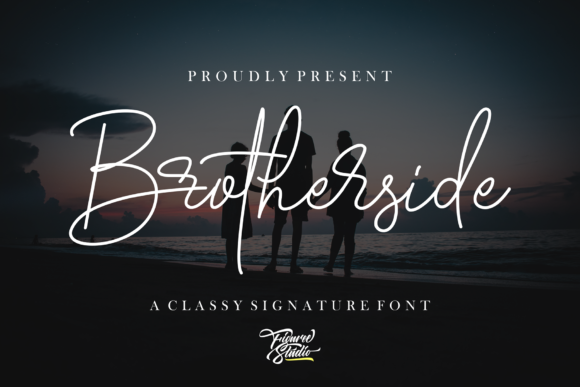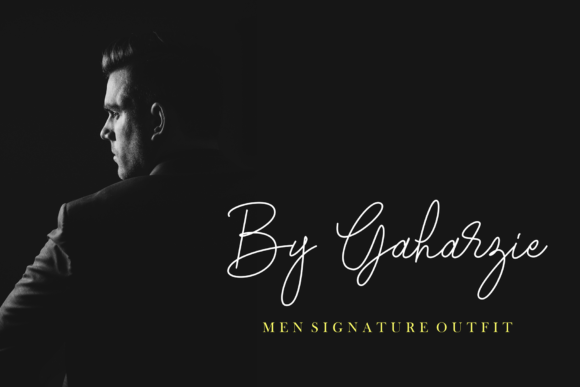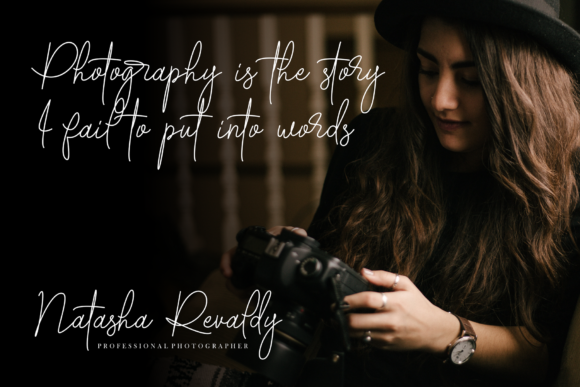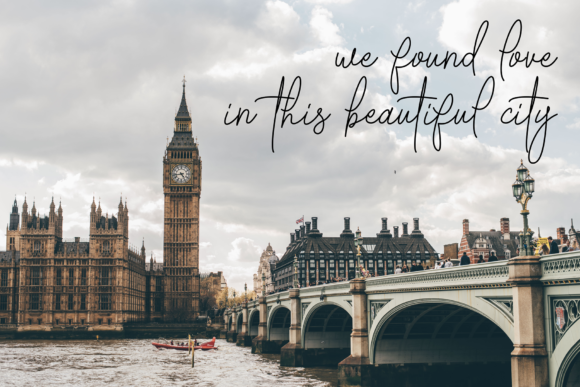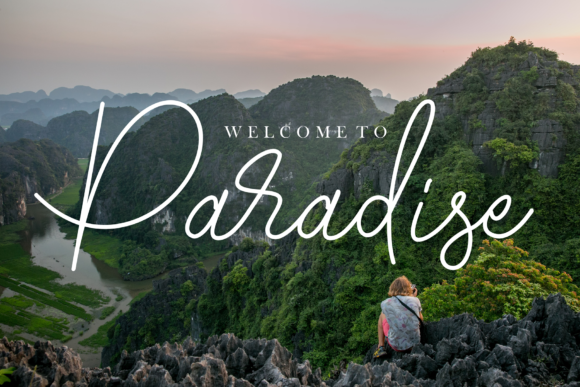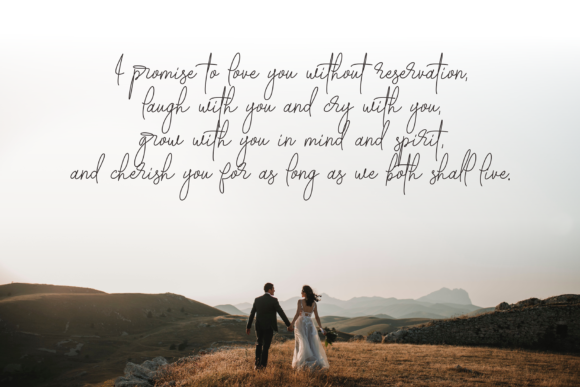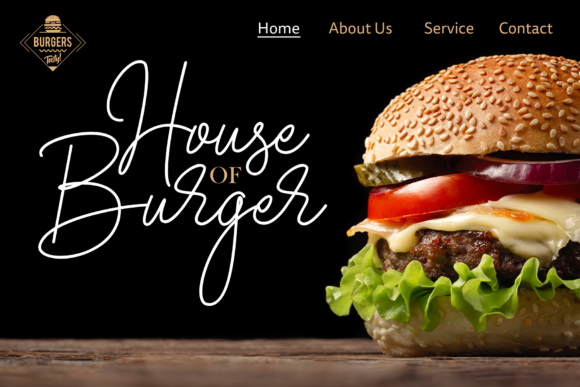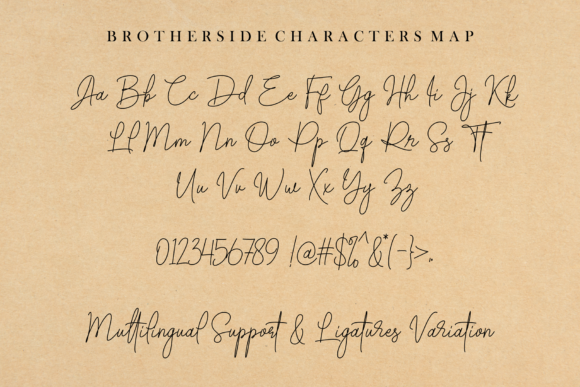
HomeScript FontsBrotherside Font Script Fonts Brotherside Font FacebookXPinterestWhatsApp Brotherside Font Poster 2 Brotherside Font Poster 3 Brotherside Font Poster 4 Brotherside Font Poster 5 Brotherside Font Poster 6 Brotherside Font Poster 7 Brotherside Font Poster 8 About Brotherside Font Brotherside is a signature font that lets you achieve a handwritten feeling. Get inspired by its classic style! DOWNLOAD ON CREATIVE FABRICAThis font is sold and delivered by Creative Fabrica. Font Canyon may earn a commission if you buy through this link. People also explored Mandarina Font Silver & Stardust Duo Font Zonttife Font Fatahiyah Font Mezza Semi Bold Font White Campfire Enamel Mug Mockup with Daisy Field. House Plant Font Vanillate Font Boldstrike Font 467 0 TagsBrotherside Font Previous articleStarfight FontNext articleSailing & Wishes Font LEAVE A REPLY Cancel reply Comment: Please enter your comment! Name:* Please enter your name here Email:* You have entered an incorrect email address! Please enter your email address here Website: Save my name, email, and website in this browser for the next time I comment. Personal Use Free Bridgetown Font Personal Use Free Read more about this font Alista Font Personal Use Free Read more about this font Sui Genesis Personal Use Free Read more about this font Allea Sweet Personal Use Free Read more about this font BLOG Transform Your Website: Elevate Your Typography with 7 Best Web Font Generators Are you ready to transform your website's typography from ordinary to extraordinary? Great! Today, we're diving into the world of web font generators, which... Top 7 Google Fonts Alternatives for Faster and Privacy-Friendly Web Design (2025) Where to Buy American Fonts Online in 2024 To increase your work productivity, choose the most readable fonts.